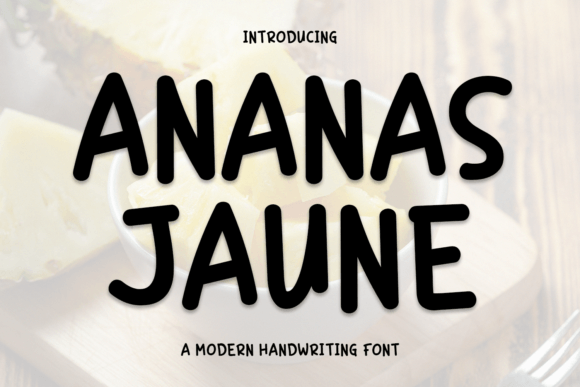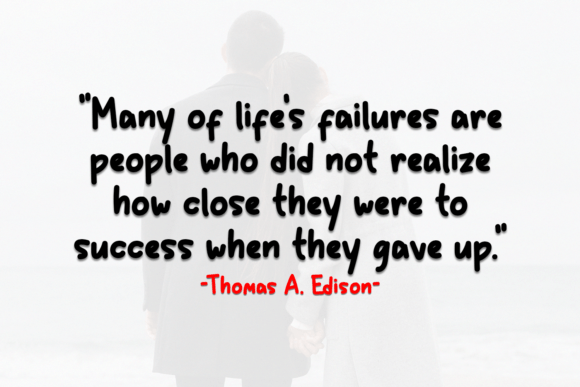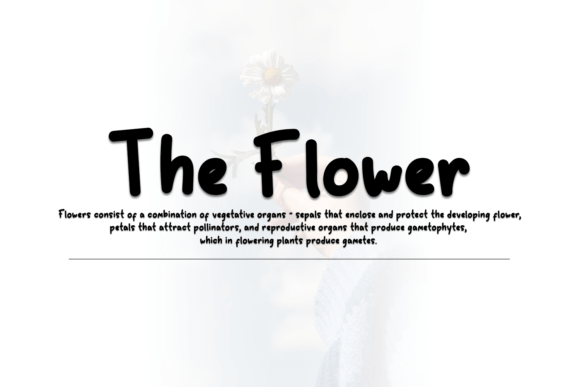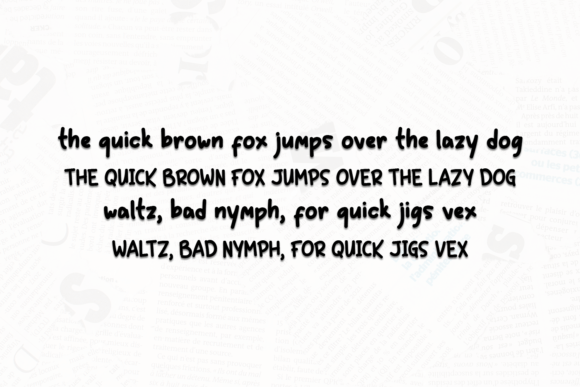
Ananas Jaune Font: Cute Handwritten Font for Cricut & DIY Projects
About the Ananas Jaune Font
Step up your design game with Ananas Jaune Font, a font that exudes confidence and style. Ananas Jaune is a modern font made to look like handwriting. This simple and unique designed font is suitable for designing a poster, text title, fun, cuteness, and many more. In addition, each typed letter will be neatly organized and regular like writing.
Ananas Jaune’s playful, yet legible nature makes it ideal for headlines, short text blocks on packaging, and social media graphics. Its hand-drawn charm lends itself well to projects needing a friendly, approachable feel, such as children’s books, invitations, or branding for cafes or boutiques. Avoid using it for large bodies of text or UI elements; its informal style would hinder readability in those contexts.
Pairing Ananas Jaune with a clean sans-serif like Open Sans for body copy creates a strong contrast, maintaining legibility while preserving the font’s unique character. Alternatively, a more geometric sans-serif like Montserrat could offer a sophisticated counterpoint, enhancing the modern aspect of Ananas Jaune. For a more playful feel, consider a simple script font as an accent.
Ananas Jaune Font Usage Examples
Ananas Jaune Font Example